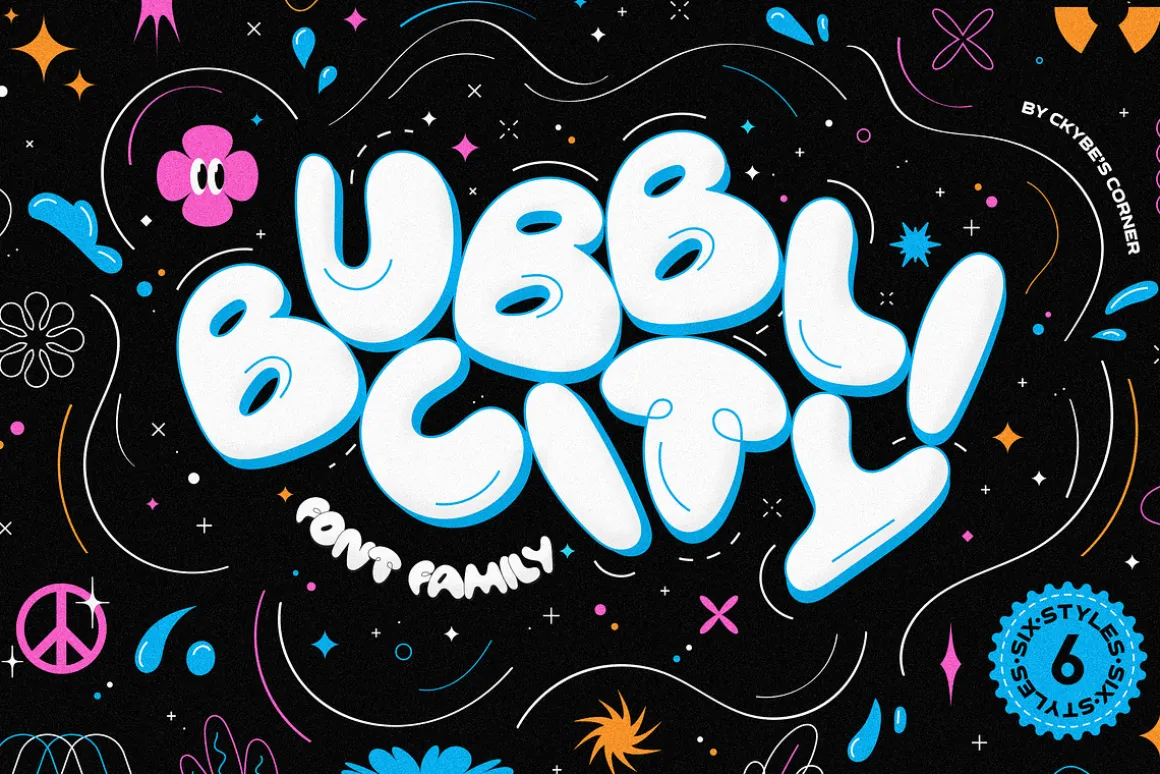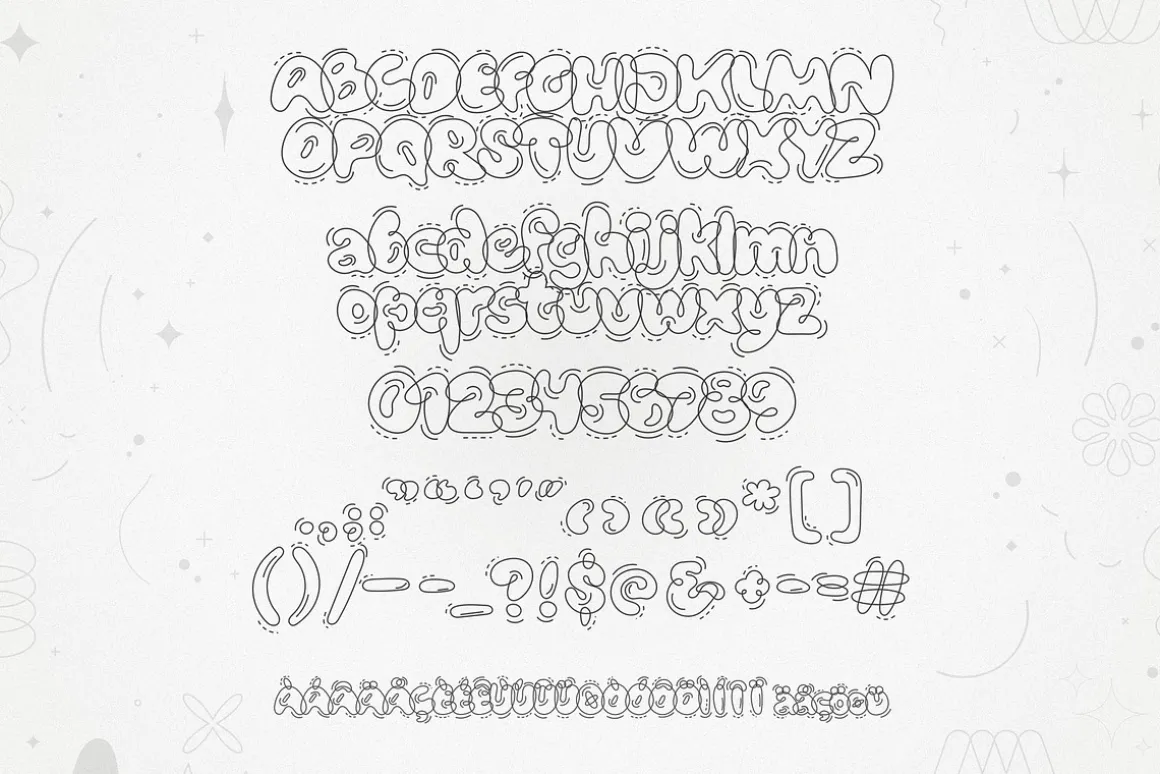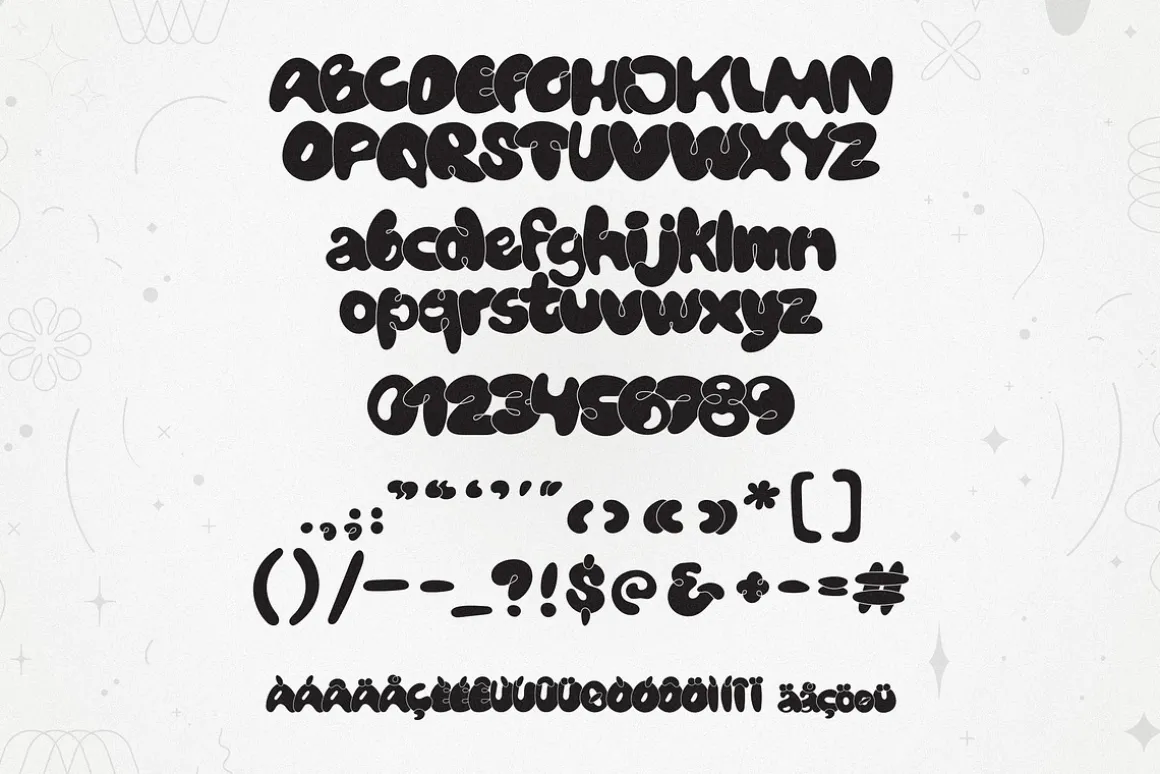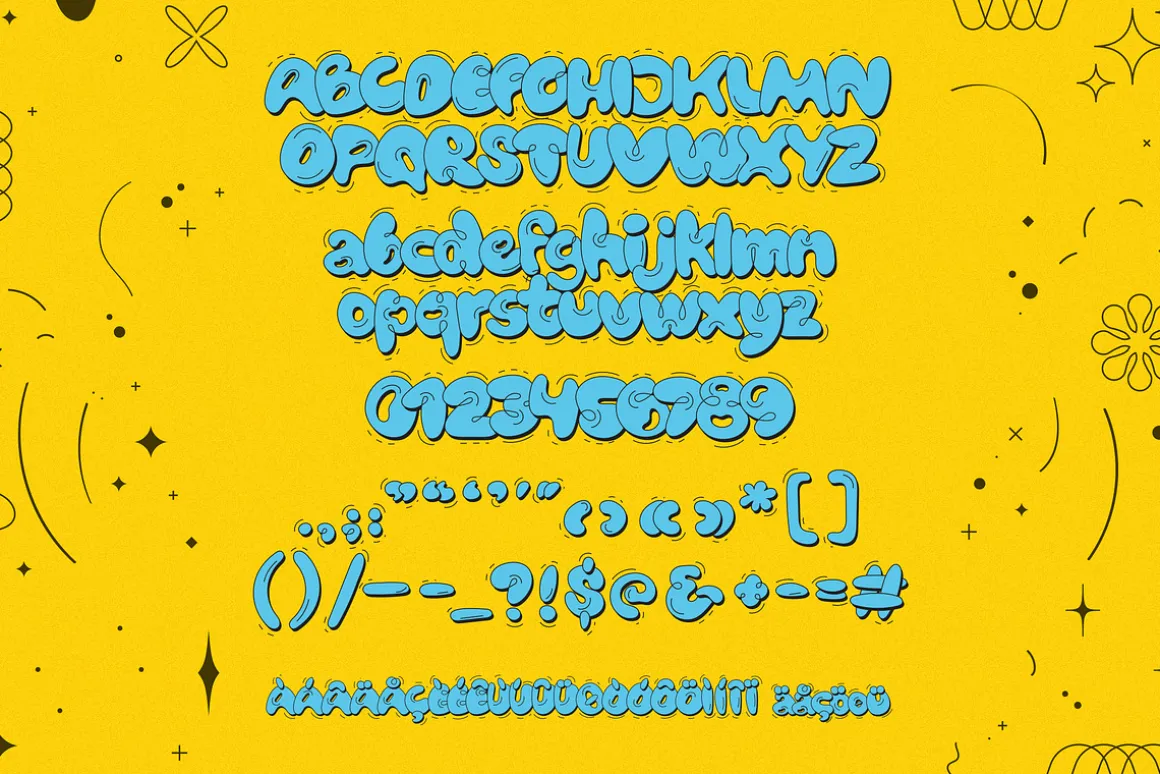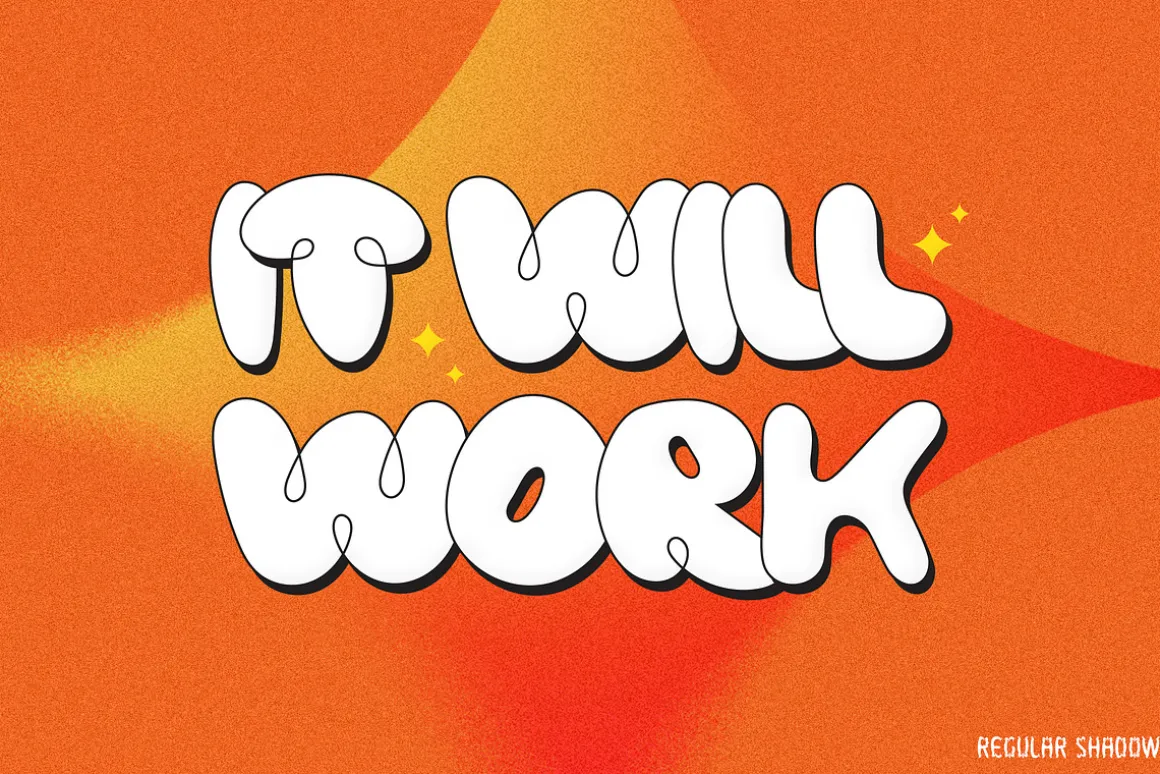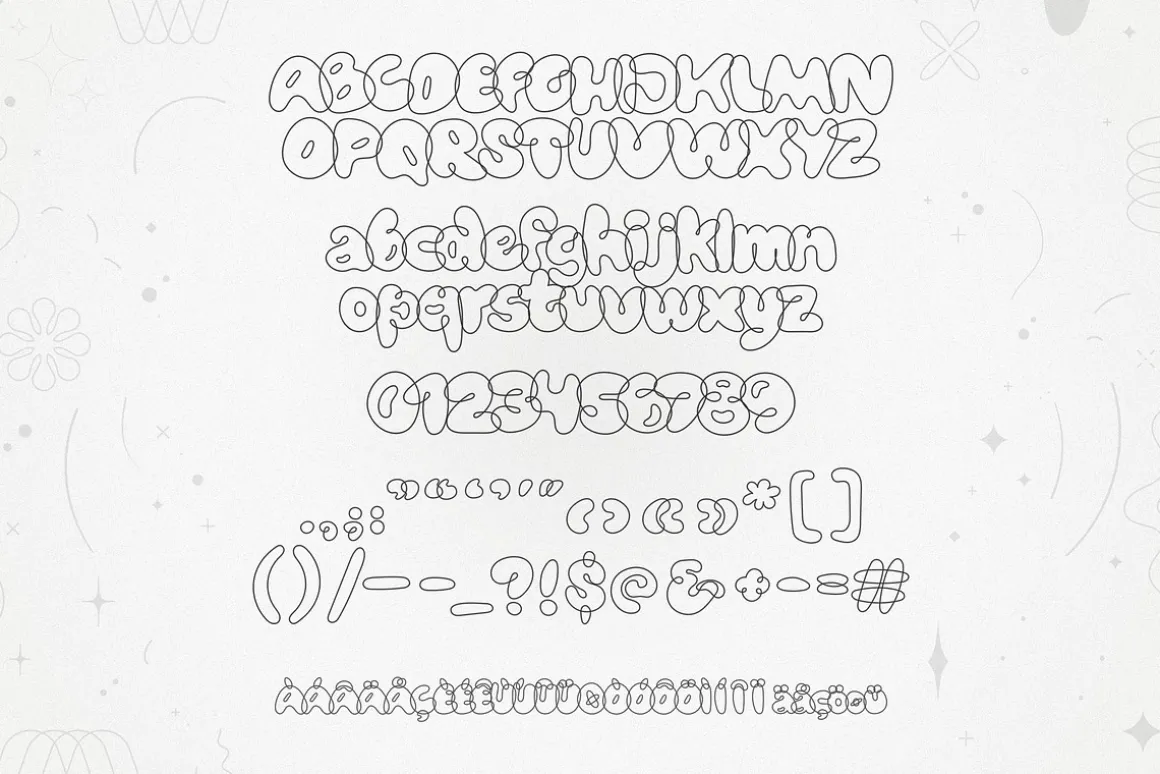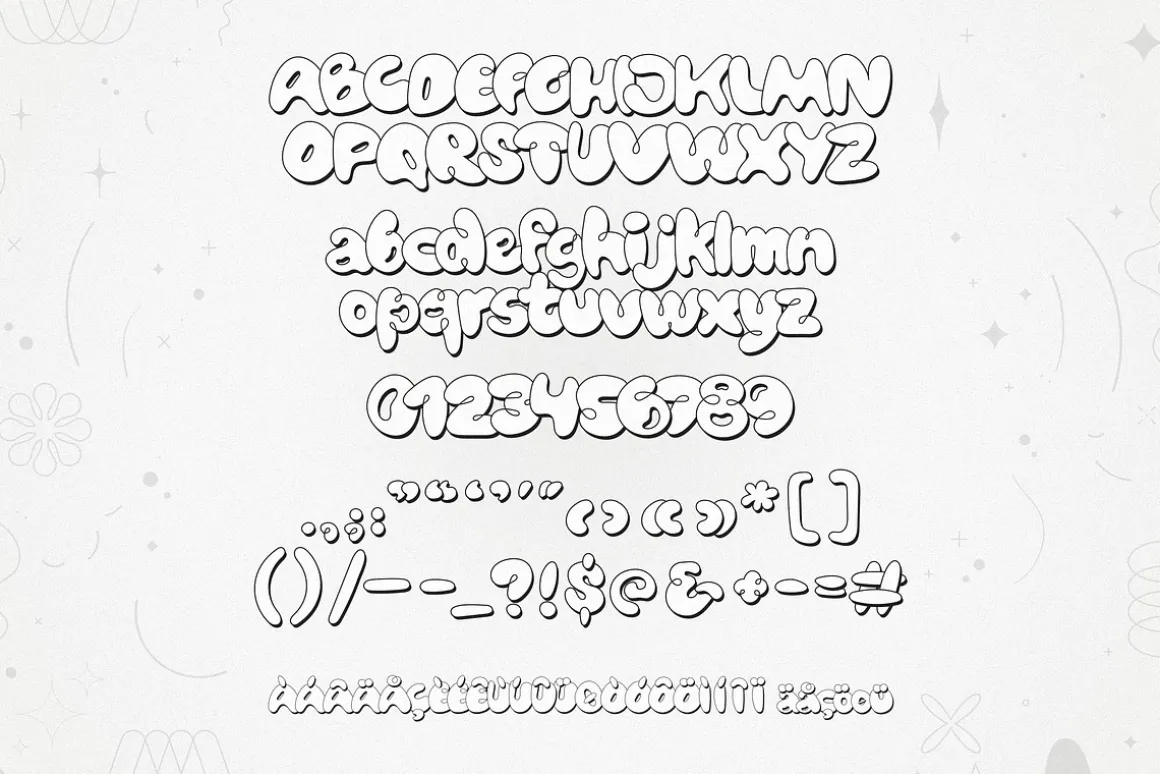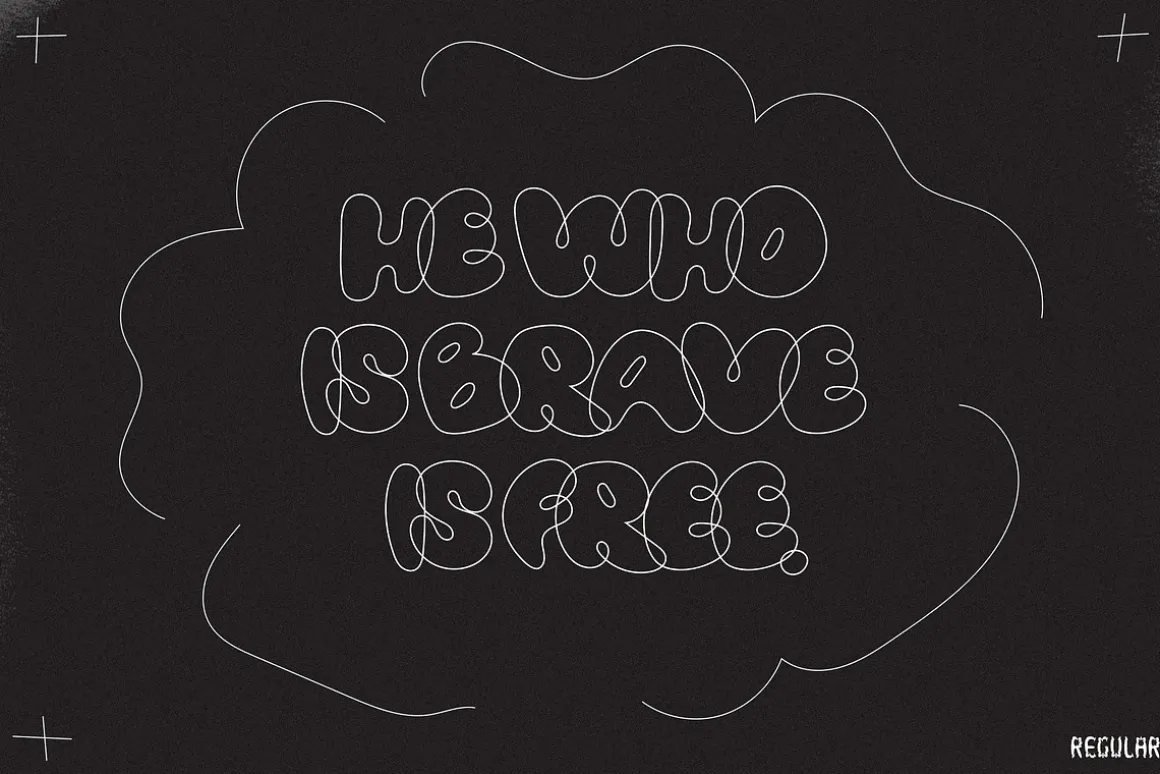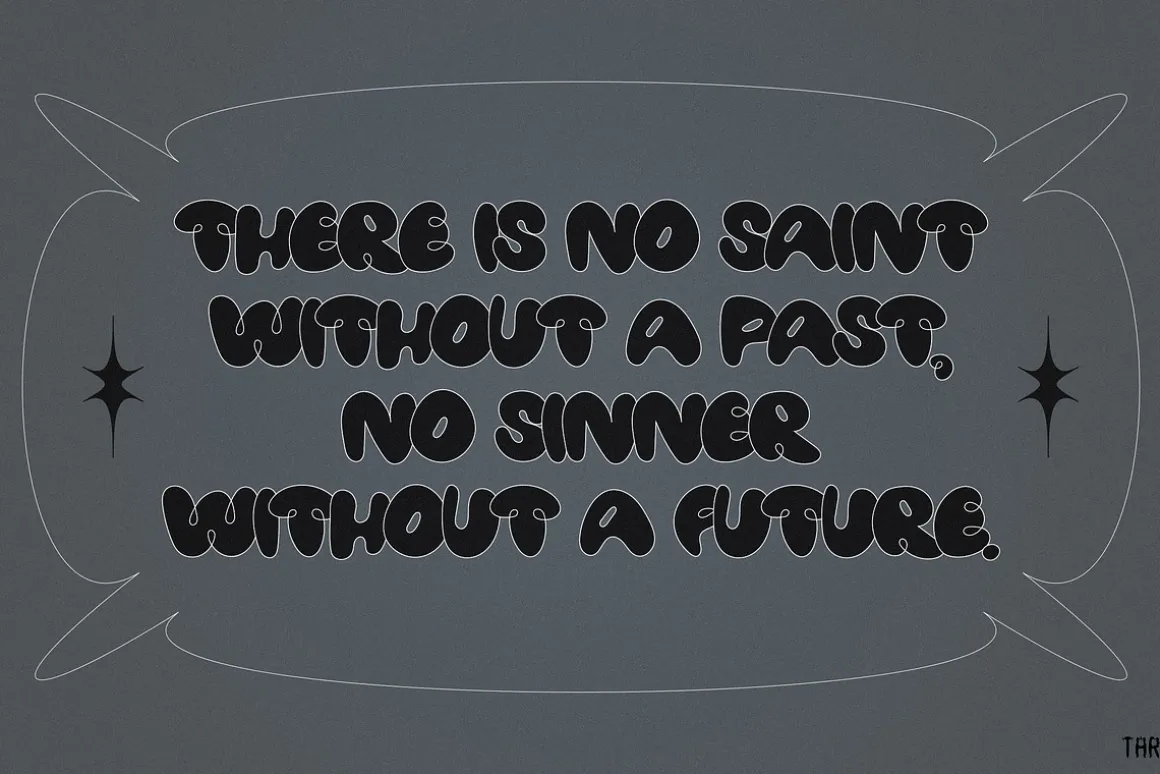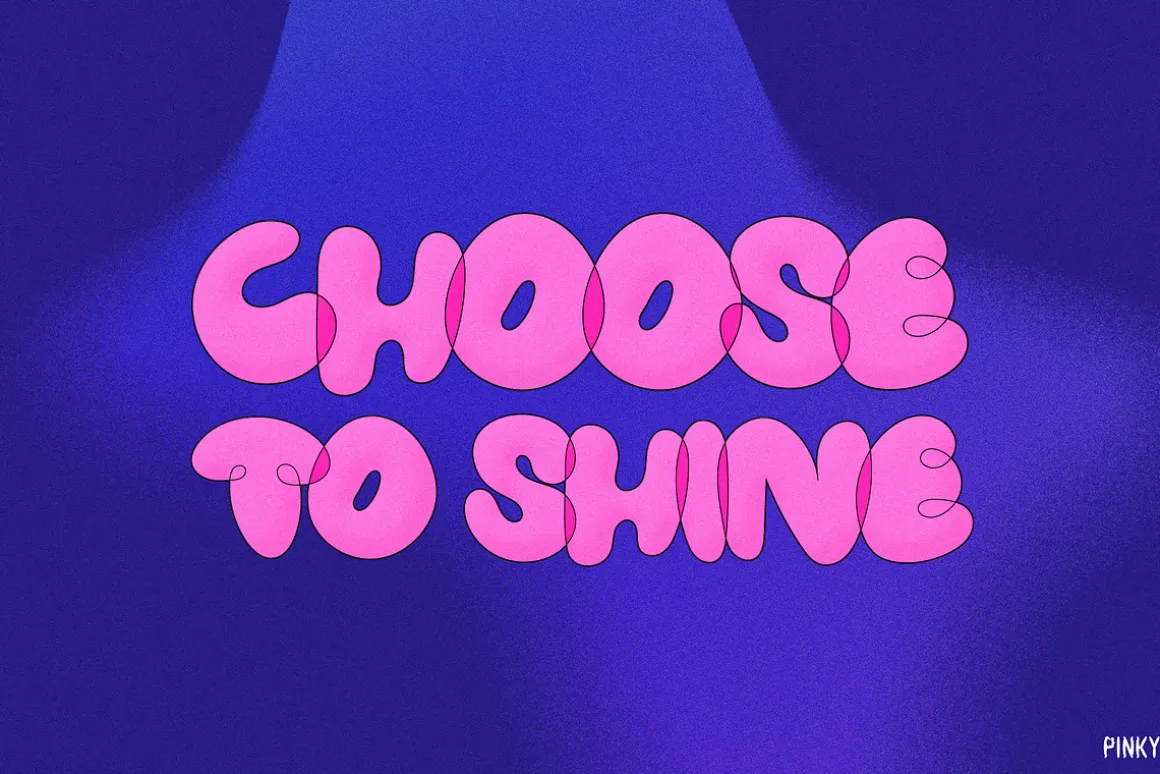
Introducing Bubblicity – Playful font family with 6 styles including color ones. This bubble font created with love to sweet 90’s and 2000s period and a little inspired with street graffiti combined with line elements flying around it. Perfect for posters, posts, invitations and other art stuff. Also you can use the font as logo. You can play with spacing because letters perfectly overlaps each other. Try to use multiply blending options and color changing in hue/saturation. A lot of opportunities with other options like bevel and emboss.